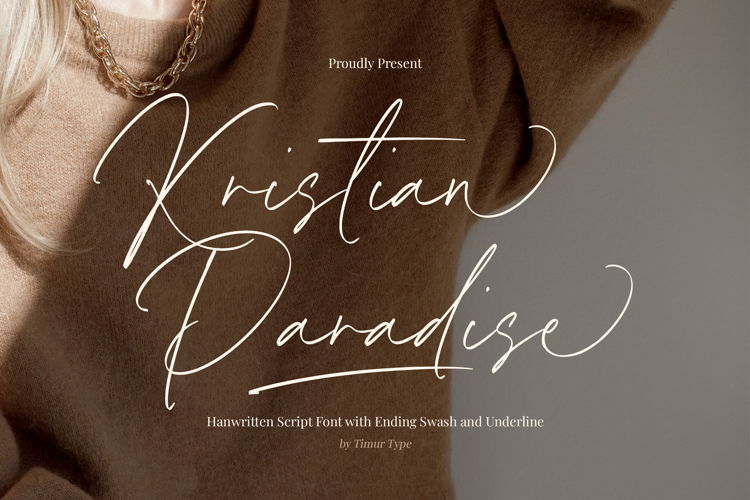
Kristian Paradise Font
Introduced by Timurtype Studio!
Kristian Paradise is a Handwritten Script Font
This font is mesmerizing handwritten script that adds a touch of elegance to your design, complete with enchanting swashes and a graceful underline. Elevate your creations with the perfect blend of style and sophistication
Kristian Paradise Font also supports multilingualism.